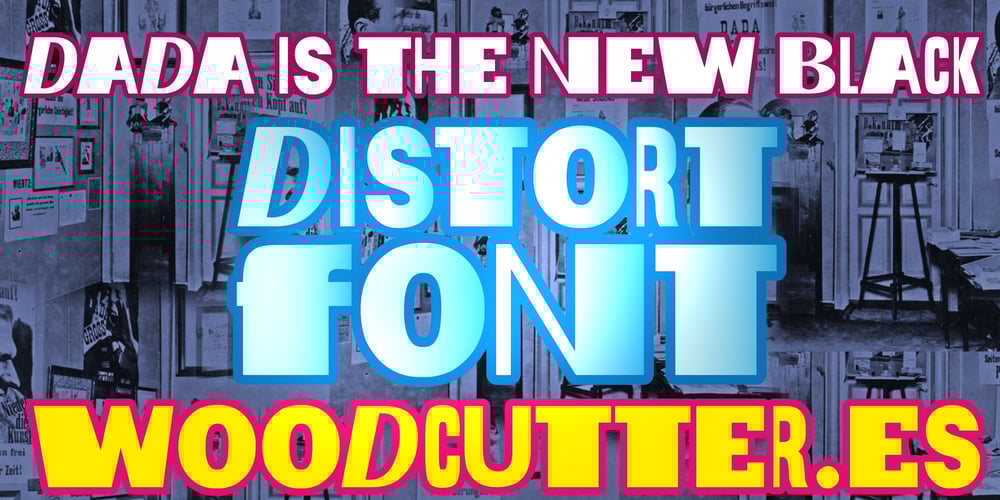
Dada is the new Black Font Family was designed by Jordi Manero and published by Woodcutter. Dada is the new Black contains 1 styles and family package options. “Dada is the new Black” is a font that captures the essence of the Dada movement, characterized by its controlled chaos and boundless creativity. The letters are disparate, varying in style and size, adding a unique and provocative touch to any design. This typeface defies symmetry and uniformity, embracing typographic diversity in every character. With accents included, it’s perfect for projects that aim to break the mold and stand out with a bold and experimental aesthetic.–Uppercase